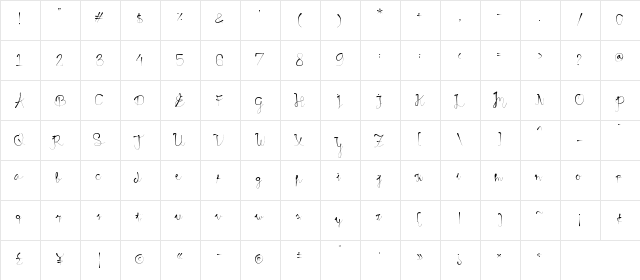
Etthiopian Regular
Design Context for Etthiopian Typeface
Etthiopian is a composed and adaptable typeface that performs quietly and consistently across a wide range of design contexts.